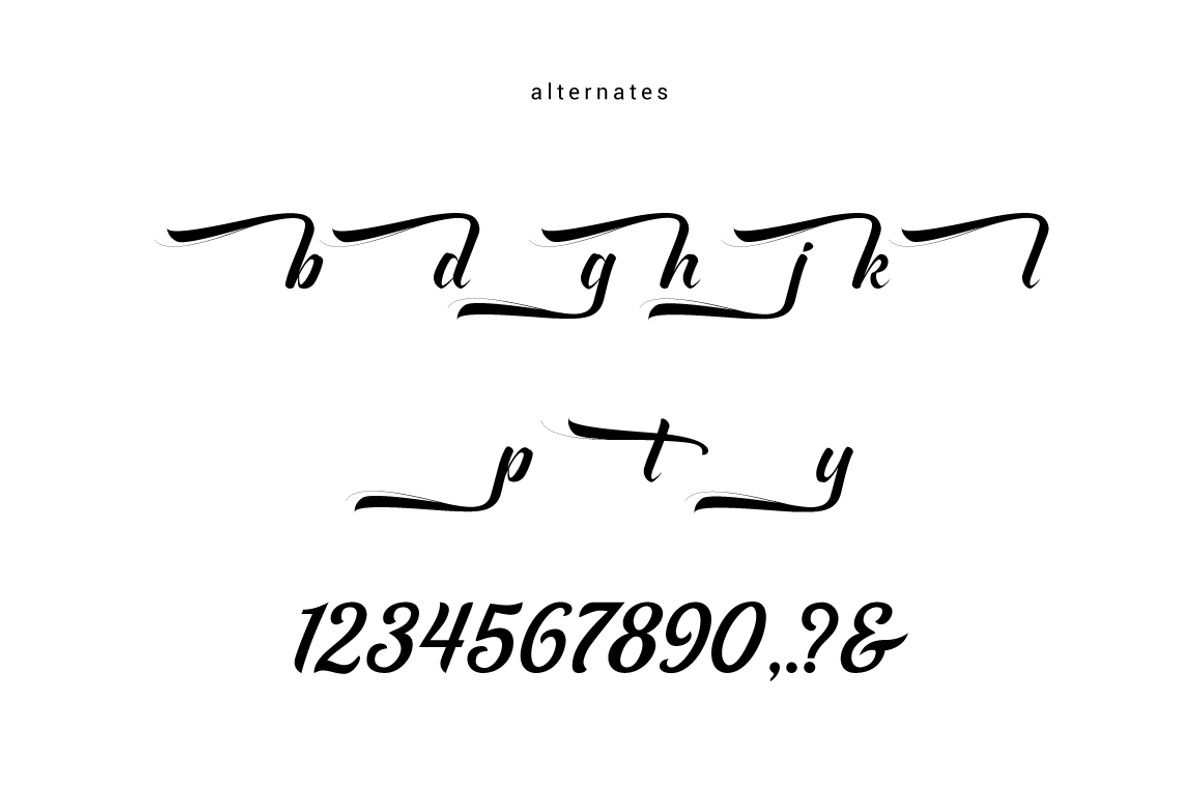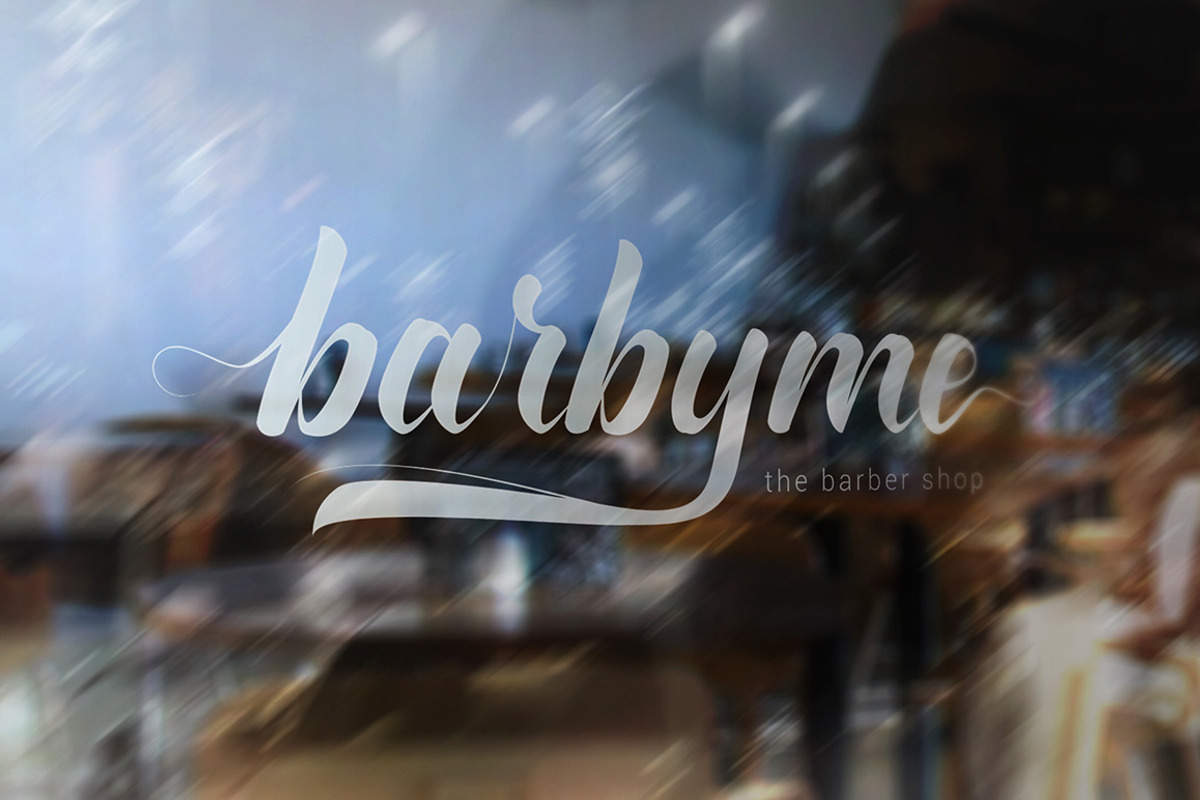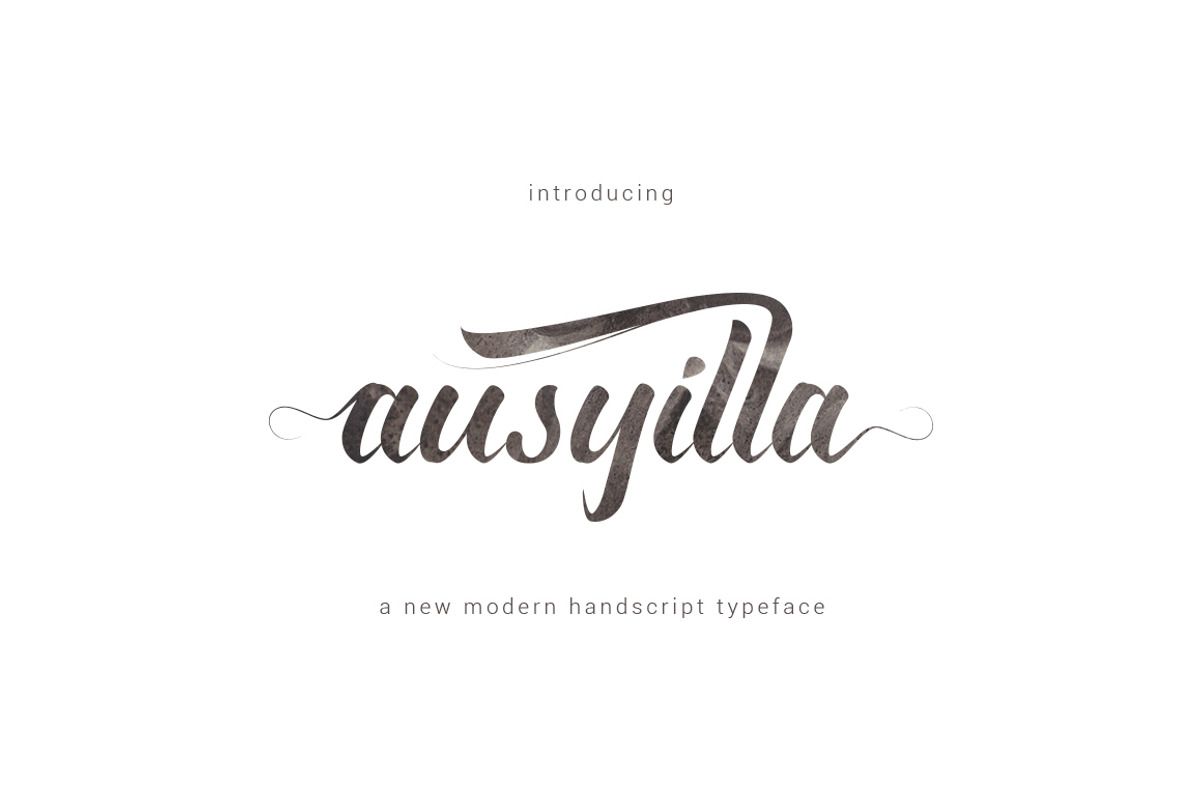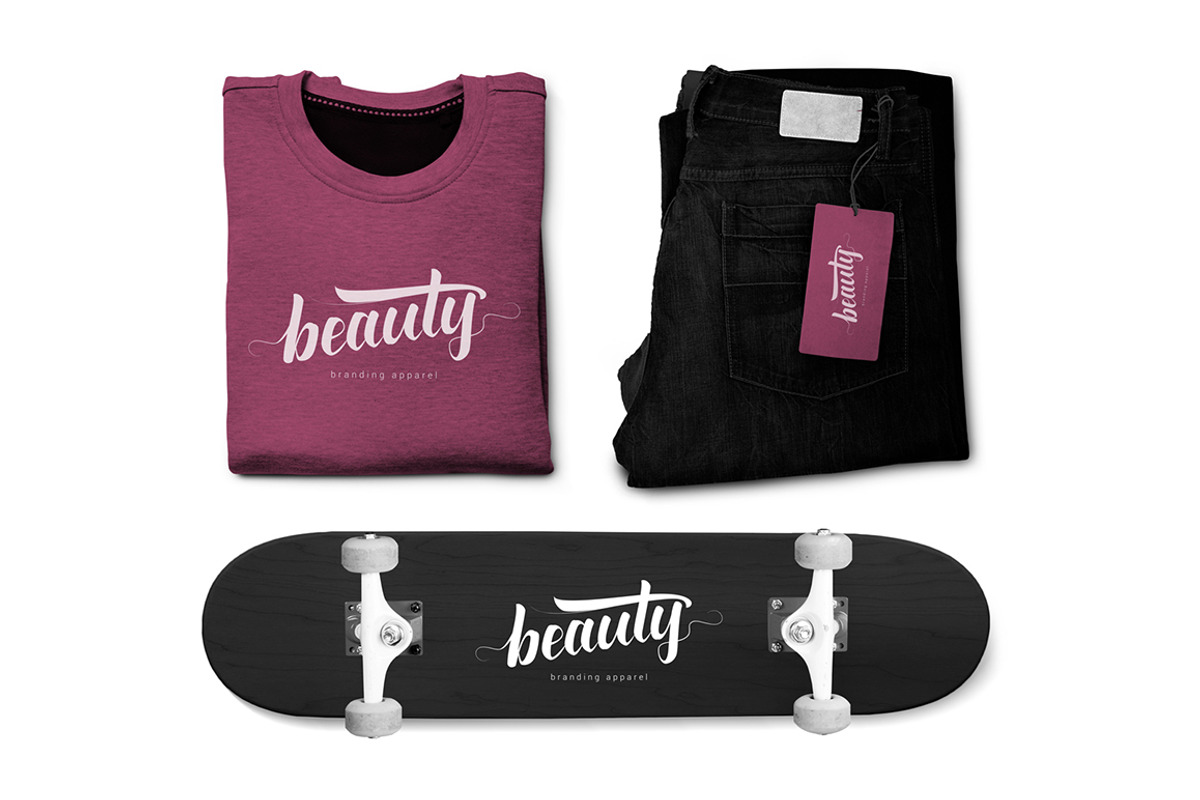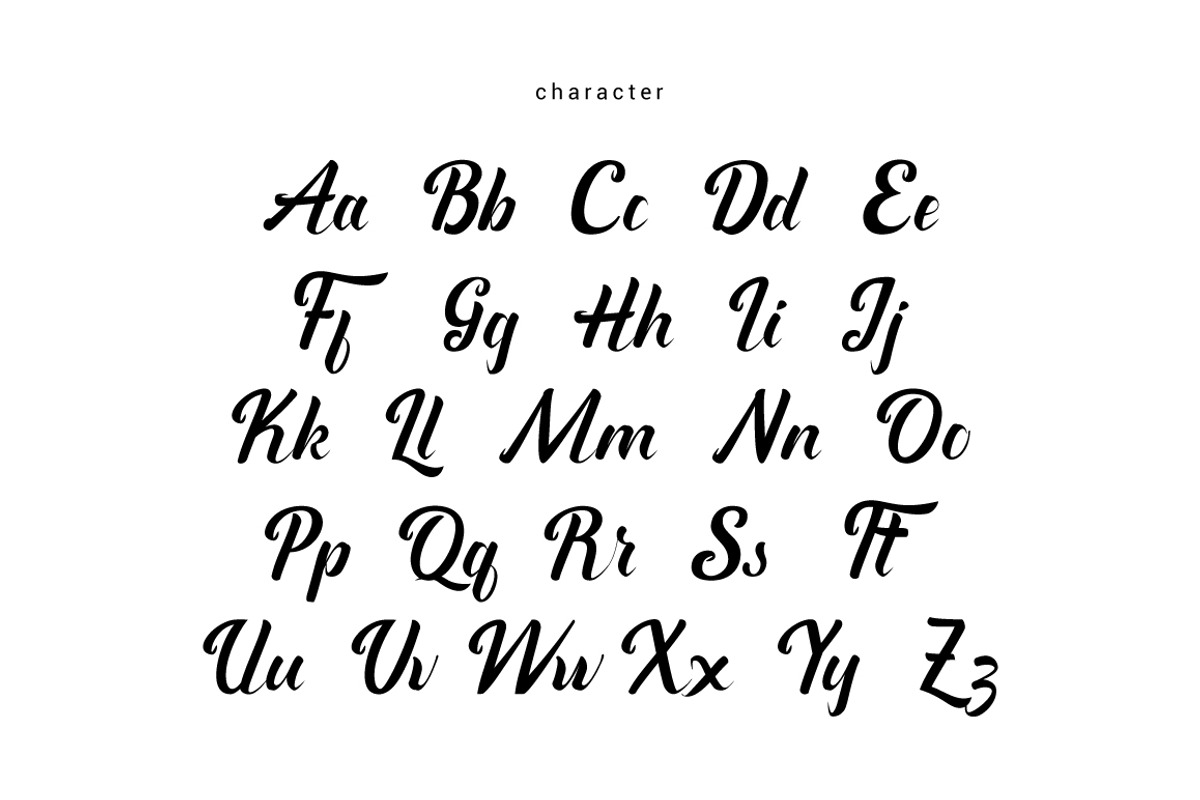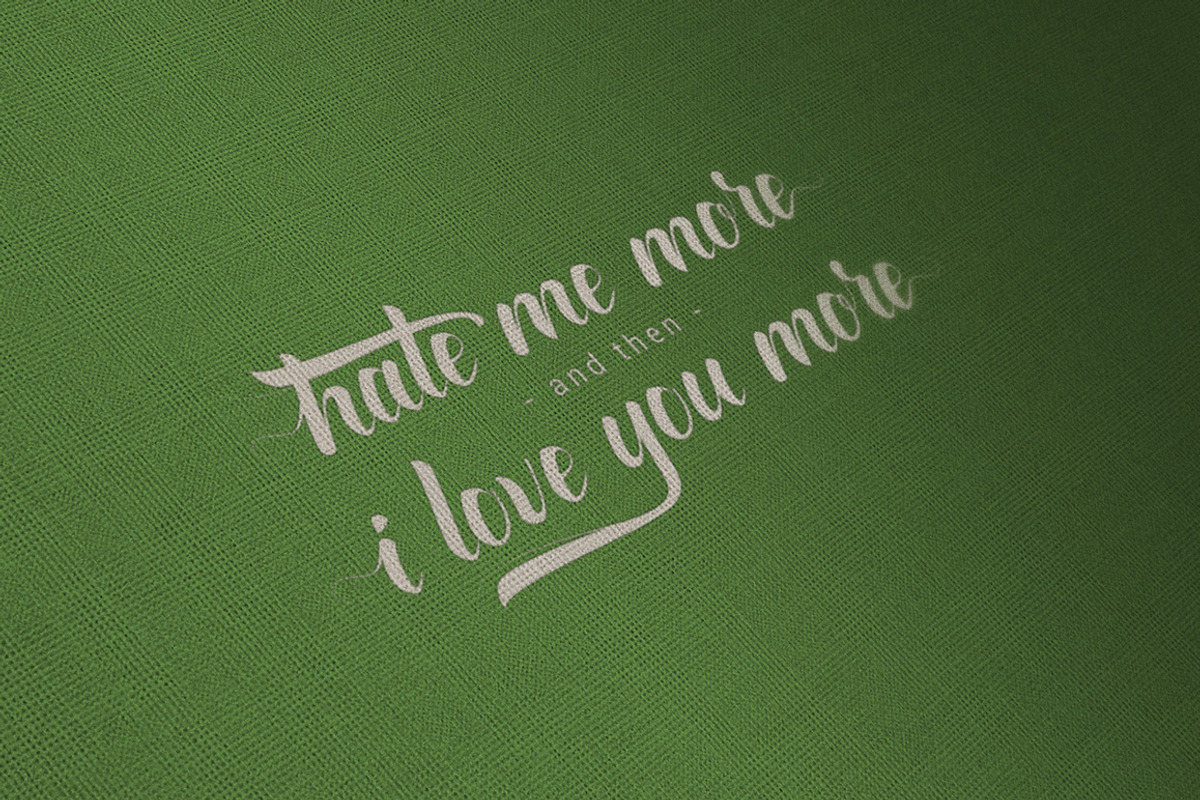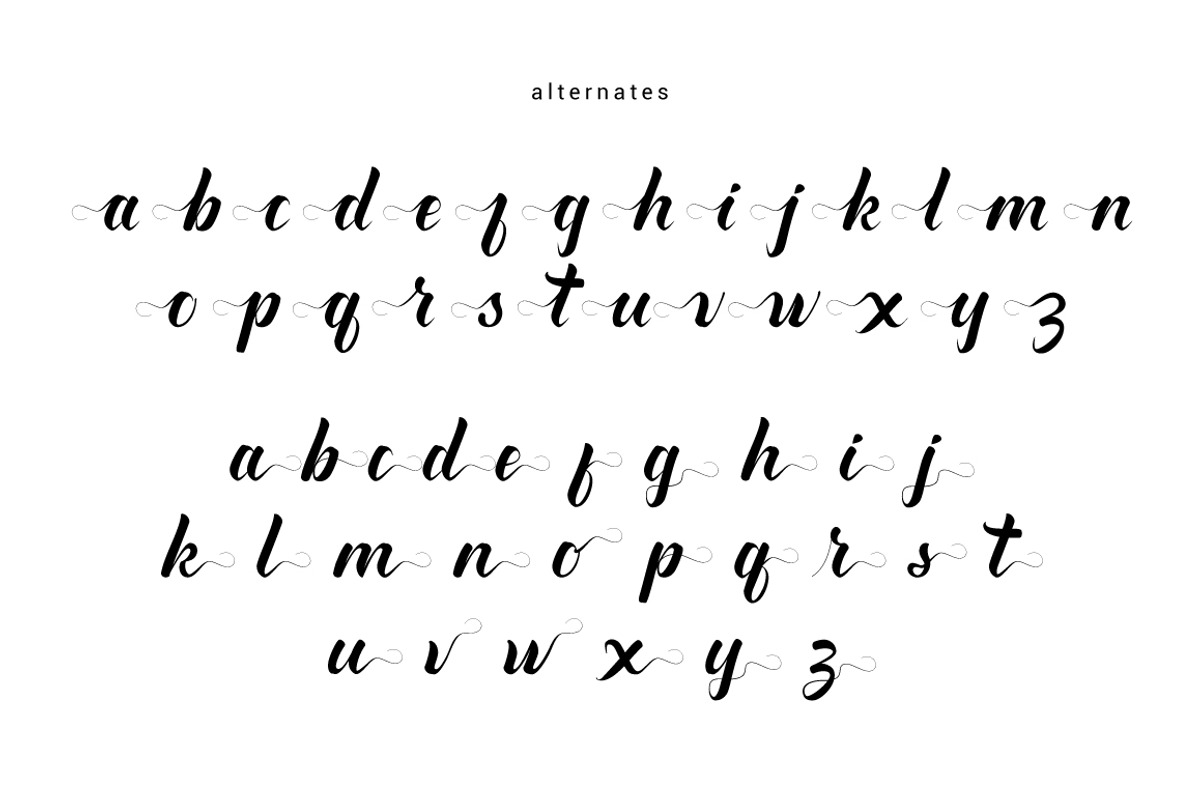
Ausyilla Typeface
Ausyilla Typeface by Thirtypath Studio is a font selected for branding, posters, packaging, typography.
- Features:
- Standard Character
- Satylistic Sets
Why Ausyilla Typeface is worth a look
Ausyilla Typeface by Thirtypath Studio fits naturally into Branding, posters, packaging, typography.